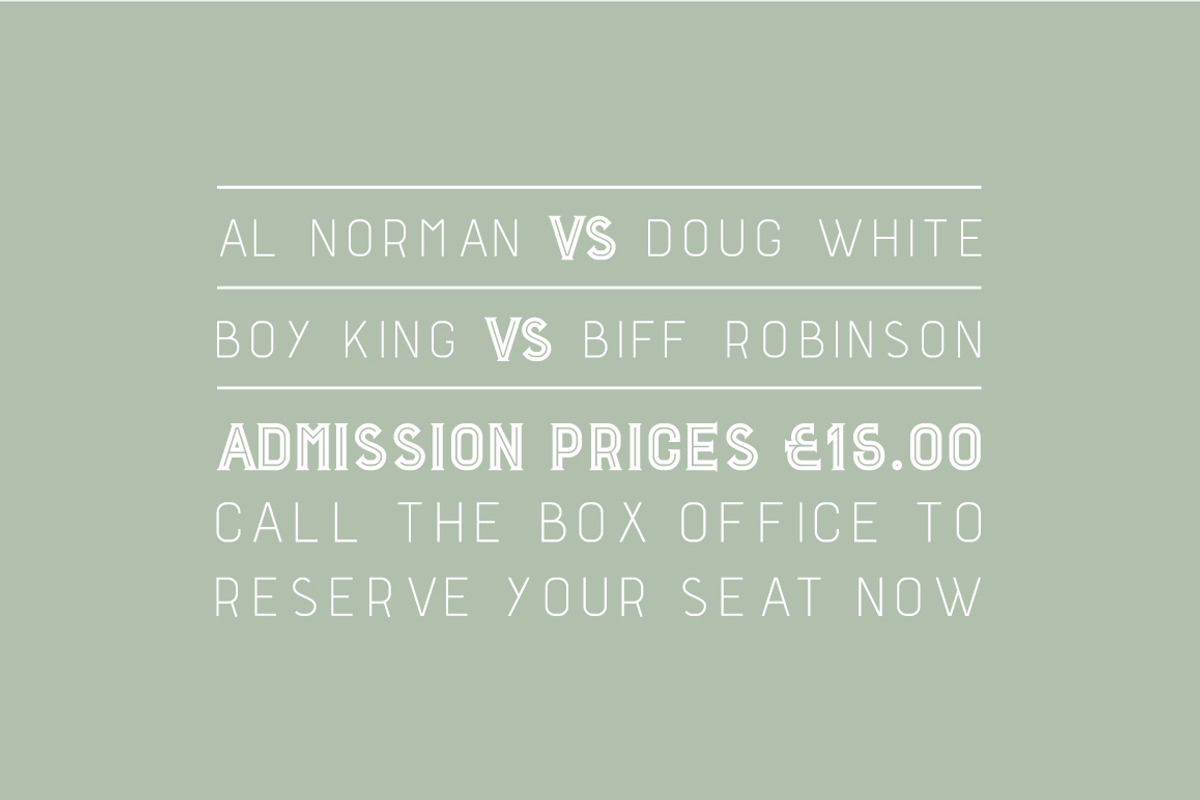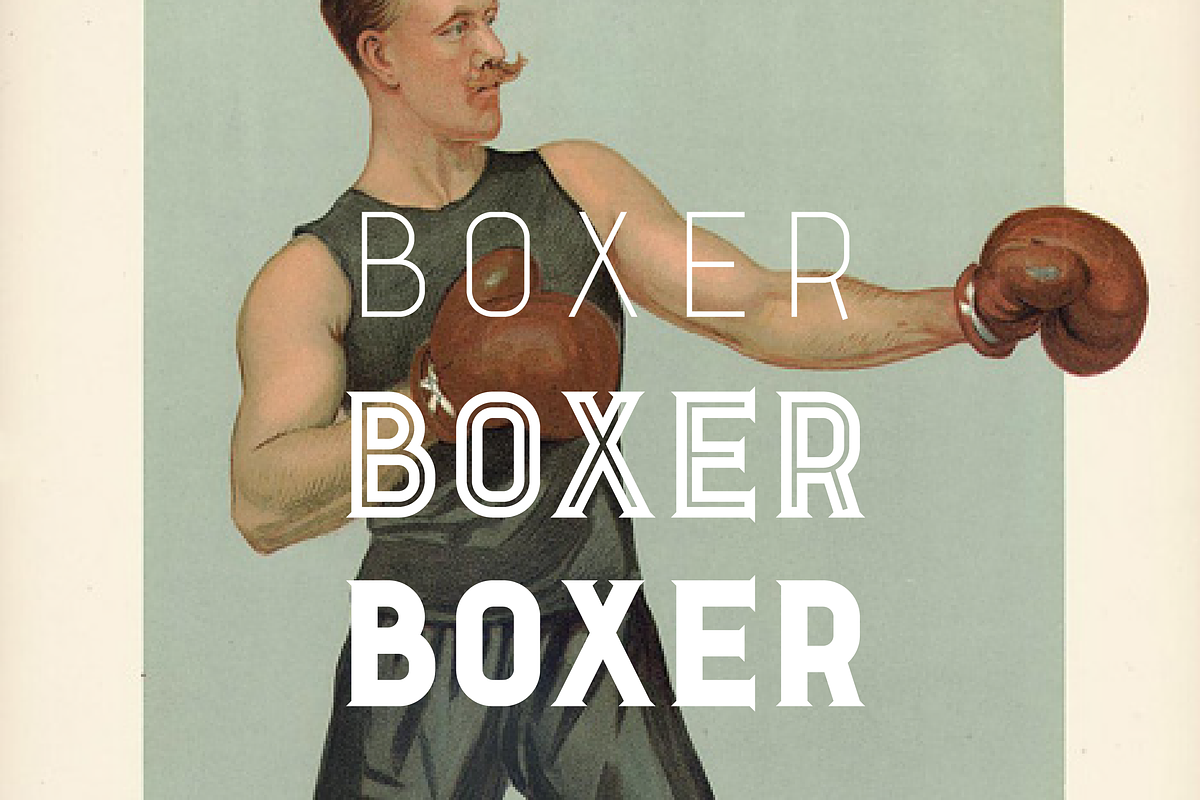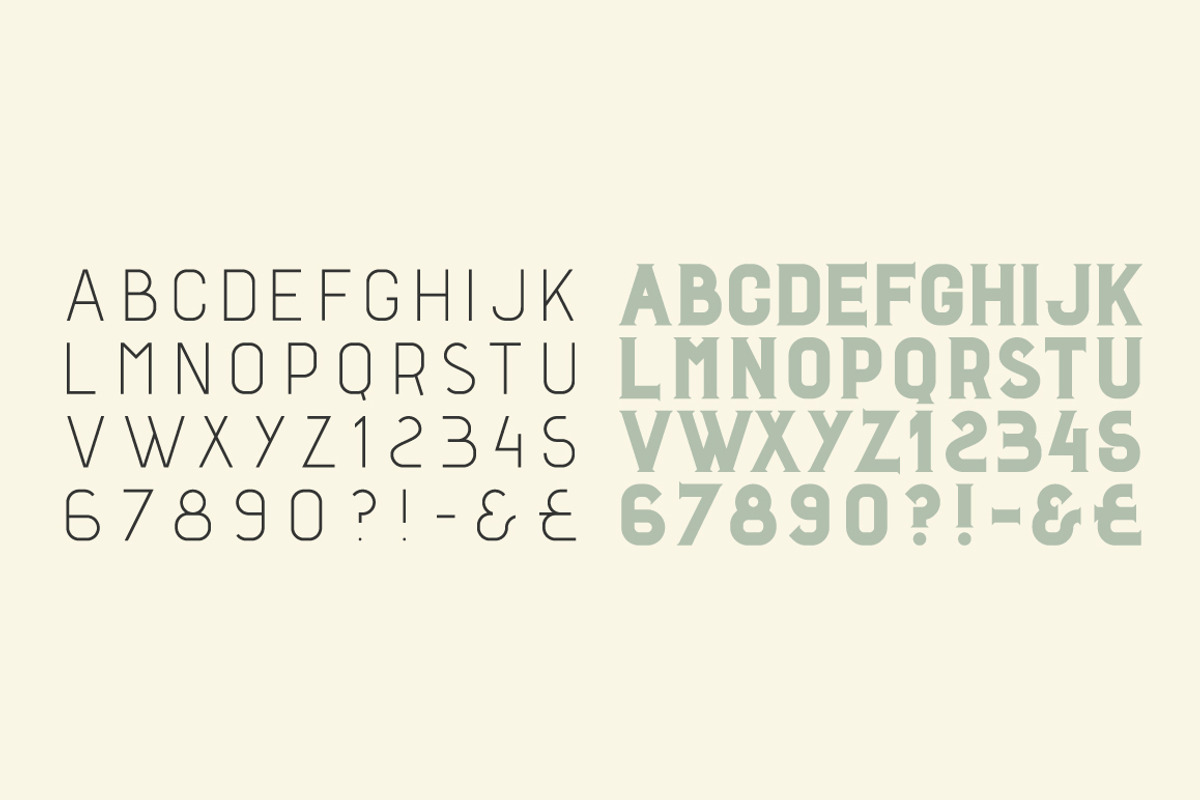
Boxer Typeface
Boxer Typeface by Studio Bayley is a font selected for branding, posters, packaging, typography.
- Boxer Bold
- Boxer Inline
- Boxer Line
Why Boxer Typeface is worth a look
Boxer Typeface by Studio Bayley fits naturally into Branding, posters, packaging, typography.